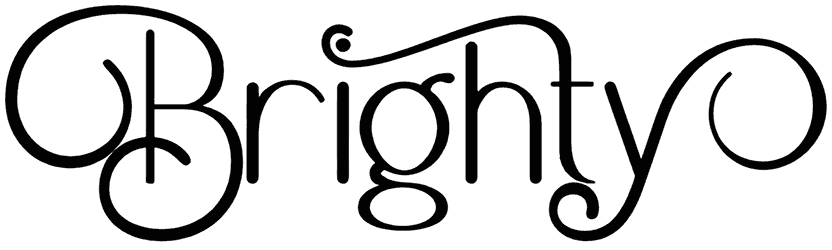
Brighty Font
Brighty is a Victorian-inspired font that can bring beauty back to projects. This classic and elegant font has twists and turns that recall royal writings and elaborate calligraphy, and at the same time, they are a sign of luxury and beauty in this script font.
These features have made Brighty shine in various projects, from book cover design to branding and advertising posters. But notice that it does not support numbers.